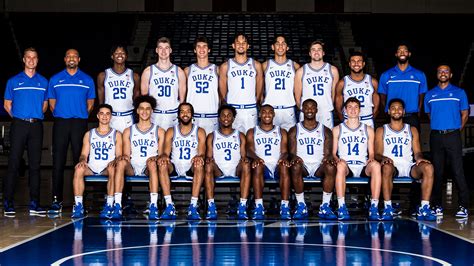
Duke Basketball Font: A Style Guide
Hey hoop fans and design nerds! Ever scrolled through Duke basketball gear and wondered, “What’s up with that font?” You know the one – bold, iconic, and screams championships . Well, guys, today we’re diving deep into the Duke basketball font style . We’re talking about the typeface that graces their jerseys, banners, and all that sweet merchandise. It’s not just any font; it’s a statement, a piece of history, and a crucial element of the Blue Devils’ brand identity. So, grab your favorite game-day snack, because we’re about to break down what makes this font so special and how it’s evolved over the years. It’s a fascinating blend of tradition and modern design, and understanding it gives you a whole new appreciation for the visual world of one of college basketball’s most storied programs. We’ll explore its origins, its key characteristics, and why it resonates so strongly with fans and alumni alike. Get ready to get your font on!
The Evolution of Duke’s Font
When we talk about the Duke basketball font style , it’s important to understand that it hasn’t always been the exact same look. Like any long-standing athletic program, Duke’s visual identity has seen its share of tweaks and updates. However, the core essence has remained remarkably consistent, which is part of its enduring appeal. Think of it like a classic car – certain lines are iconic and never really change, even as the engine gets an upgrade. Initially, the fonts used were perhaps simpler, reflecting the design trends of their respective eras. We’re talking about the days when jerseys might have had stitched lettering, giving a distinct, textured feel. As printing technologies and design software advanced, so did the possibilities. The transition from simpler block letters to more stylized, modern sans-serifs marked significant shifts. Crucially, the goal has always been to project strength, tradition, and a sense of pride. This isn’t just about making names and numbers look cool; it’s about embedding the Duke legacy into every visual element. The font needs to be legible from a distance, whether it’s on a player’s back during a fast break or on a poster across the arena. Over the decades, you might have seen slight variations in stroke width, kerning (the space between letters), and the overall weight of the typeface. These subtle changes are often driven by brand guidelines, which aim to ensure consistency across all Duke athletics. It’s a delicate balance between honoring the past and embracing the future, ensuring that the Duke brand remains recognizable and impactful. So, while you might not notice the minute differences unless you’re a design aficionado, trust that there’s a thoughtful evolution behind that iconic look. It’s a testament to the enduring power of good design and the importance of brand consistency in the competitive world of college sports.
Key Characteristics of the Duke Font
So, what exactly makes the Duke basketball font style so recognizable? Let’s break down the key characteristics that define this iconic typeface. At its core, it’s typically a bold, sans-serif font . This means it lacks the little decorative strokes (serifs) found at the ends of letters in fonts like Times New Roman. Sans-serif fonts generally convey a more modern, clean, and strong aesthetic, which is perfect for athletic branding. Think of fonts like Helvetica or Arial, but with a custom twist. The Duke font often features strong, straight lines and sharp corners , giving it a no-nonsense, powerful appearance. This is especially evident in the capital letters. The numerals are usually equally robust and clear, designed for maximum visibility. One of the defining features, especially in recent years, is a certain geometric quality . The letters often feel structured and precise, almost architectural. This can manifest in the consistent thickness of the strokes or the perfectly symmetrical curves. It’s a font that commands attention without being overly flashy. It doesn’t rely on excessive embellishments. Instead, its power comes from its clarity, its weight, and its confident form. When you see it on a jersey, the numbers and names are instantly legible, even amidst the chaos of a game. This readability is paramount in sports. Furthermore, the Duke font often has a slightly condensed or extended feel depending on the specific application, though the general vibe is one of solidity. The overall impression is one of authority and tradition . It feels established, reliable, and worthy of the legacy it represents. It’s not a font trying to be trendy; it’s a font that is timeless. This combination of bold sans-serif structure, clean lines, and inherent strength is what makes the Duke basketball font style instantly recognizable and deeply associated with the program’s identity. It’s a visual handshake that says, “This is Duke.”
Where You’ll See the Duke Font
Alright, guys, now that we know what makes the Duke basketball font style tick, let’s talk about where you’ll be seeing this legendary typeface. Honestly, it’s pretty much everywhere you look when it comes to Duke basketball! The most obvious place, of course, is on the players’ jerseys. Whether it’s the iconic blue jerseys or the crisp white ones, the numbers on the front and the names on the back are rendered in this distinctive font. It’s the first thing you notice when the team takes the court, immediately signaling who’s who and representing the program. But it doesn’t stop there. Head over to Cameron Indoor Stadium – the Mecca , right? – and you’ll see the Duke font plastered all over. Think banners hanging from the rafters , commemorating past championships and legendary players. Those banners use the font to proudly display achievements and names, reinforcing the program’s rich history. Scoreboards, signage within the arena, and even the court itself often incorporate elements of the Duke font. You might see it subtly integrated into the floor design or boldly displayed on directional signs guiding fans to their seats. Beyond the stadium, the font is a cornerstone of Duke’s official merchandise . We’re talking t-shirts, hoodies, hats, coffee mugs, you name it. If it’s got the Duke logo or team name on it, chances are the signature font is right there with it, solidifying the brand across a huge range of products. Marketing materials, websites, and official publications also heavily rely on this font to maintain brand consistency. From recruiting posters to game-day programs, the Duke font ensures that every piece of communication feels authentically Duke. It’s a visual language that unifies the entire Duke athletic experience. Even in digital spaces, like social media graphics or website headers, the font plays a crucial role in maintaining that instantly recognizable look and feel. It’s the thread that ties everything together, from the hardwood to your closet.
Why Font Choice Matters for Duke
For a program with the prestige and history of Duke basketball, the Duke basketball font style isn’t just a design choice; it’s a strategic decision that carries significant weight. Why does the font matter so much? It’s all about brand identity and conveying the right message. Think about it: a font is one of the most fundamental visual elements of any brand, and Duke’s brand is synonymous with excellence, tradition, and a fierce competitive spirit. The chosen font needs to embody these qualities. A weak, flimsy font wouldn’t do justice to the legacy of Coach K or the intense rivalries Duke engages in. Conversely, a bold, clean, and robust font like the one Duke employs projects strength, confidence, and a sense of permanence. It says, “We are here to win, and we have a history of doing so.” Consistency is another massive factor. By using a specific, recognizable font across all their athletic endeavors – jerseys, merchandise, signage, digital platforms – Duke creates a unified and professional image. This consistency helps build brand recognition and loyalty among fans. When you see that font, you immediately associate it with Duke, fostering a connection and sense of belonging. Furthermore, legibility is paramount in sports. Whether it’s players’ names and numbers on jerseys for identification during a game, or championship years on banners for all to see, the font must be clear and easy to read from a distance. The Duke font achieves this through its strong, uncluttered design. It’s not about being overly stylized or trendy; it’s about being functional and impactful. It also speaks to tradition. While designs evolve, the core characteristics of the Duke font have been maintained, nodding to the program’s storied past. This blend of tradition and modernity is crucial for a program that respects its history while constantly aiming for future success. Ultimately, the Duke basketball font style is a powerful, silent communicator. It reinforces the program’s values, builds brand equity, ensures clear communication, and connects fans to the legacy of excellence. It’s a small detail that makes a huge difference in how the Duke basketball program presents itself to the world.
Finding Similar Fonts
For those of you who admire the Duke basketball font style and are looking to capture that same powerful aesthetic in your own projects, you’re in luck! While the exact official Duke font might be proprietary or a custom creation, there are plenty of fonts out there that share its core characteristics. When searching for similar fonts, focus on bold, geometric sans-serifs. Look for typefaces that have strong, clean lines, sharp terminals (the ends of strokes), and a generally sturdy feel. Many athletic-style fonts will evoke a similar vibe. Think about fonts often used for sports teams, professional leagues, or even robust corporate branding. Some popular typefaces that come close include Impact , known for its extreme boldness and condensed nature. While a bit more aggressive, it captures that sense of power. Bebas Neue is another excellent option; it’s a popular, free sans-serif font that is tall, condensed, and has a very clean, modern look perfect for headings and display purposes. Oswald is also a great contender, offering a slightly condensed, classic feel that’s highly legible. For something a bit more stylized but still in the ballpark, you might explore fonts with names like College , Varsity , or Athletic . These often aim to replicate the look and feel of sports typography. Keep an eye out for fonts with strong **